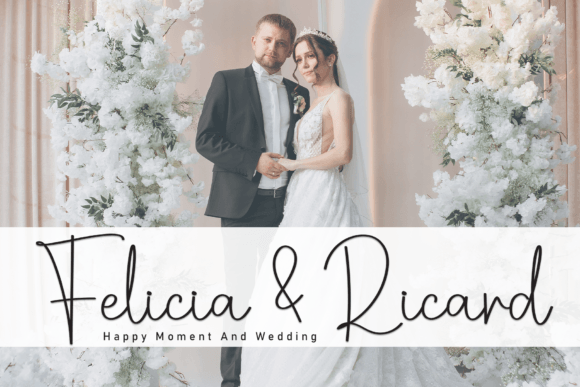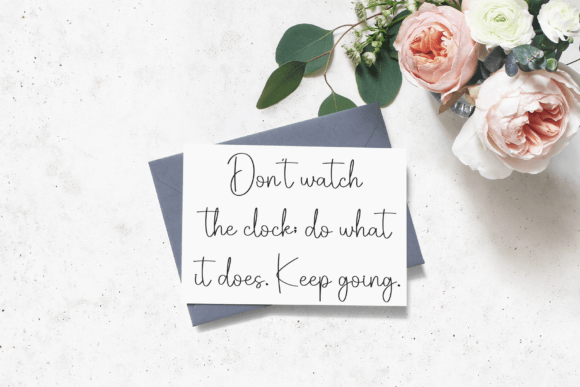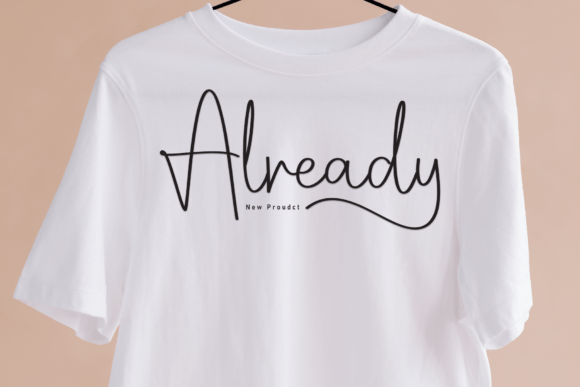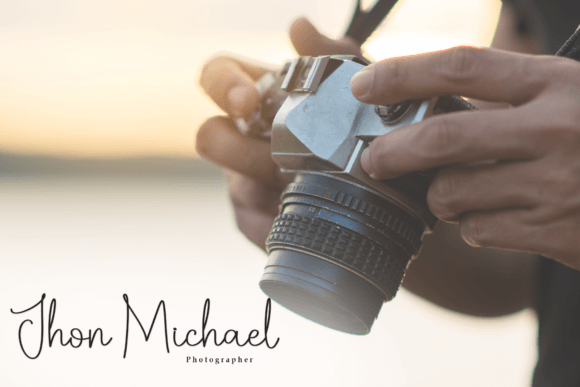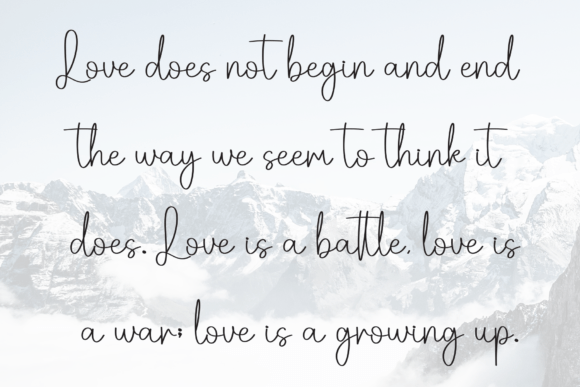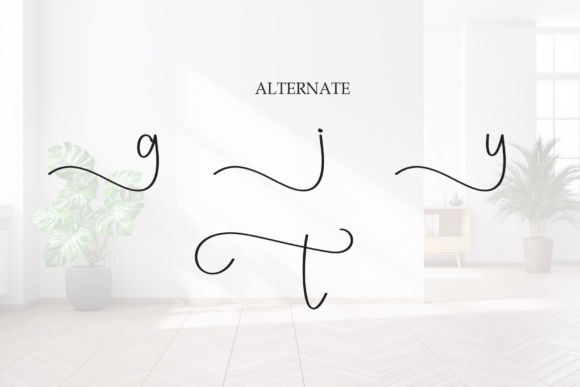
Introduction to Property Font
Have you ever been in the middle of a creative project, searching for the perfect font to bring your design to life, only to find that nothing seems to fit? The search can be overwhelming, but what if I told you that there’s a high-quality font that could elevate your design to the next level?
Enter Property Font, a stunning and elegant script font that’s perfect for adding a handwritten touch to your designs. Whether you’re working on a wedding invitation, a thank you card, or a logo, Property Font is sure to impress. With its transparent background and versatile style, it’s a valuable resource for designers looking to create something truly unique and memorable.
Not only is Property Font a free download, but it’s also a great way to add a personal touch to your designs. In this article, we’ll explore the features and benefits of Property Font, and show you how to incorporate it into your next creative project.
Key Features of Property Font
- High-quality font with a transparent background, ideal for creative projects and design resources.
- Unique and stylish font design, perfect for adding a touch of elegance to any creative project.
- Easy to use and customize, with a clear and legible font style that is perfect for body text and headings.
Honest Review: Property Font
As a designer, I’m always on the lookout for high quality design resources to elevate my creative projects. Property Font has caught my attention with its sleek and modern design.
- ✨ The Property Font has a transparent background, making it easy to use in any design project.
- ✨ The font is available in various weights and styles, giving designers flexibility in their creative projects.
- ⚠️ The font is not suitable for use in print materials, as it may not hold up well under high resolution.
- ⚠️ Some designers may find the font too modern or trendy, which may not fit with their design aesthetic.
Overall, I’m impressed with Property Font. It’s a great addition to any designer’s toolkit, especially for digital design projects. With its transparent background and free download, it’s a convenient and high-quality resource to have on hand.
Tips for Getting the Most Out of Property Font
To get the most out of Property Font, use it with a transparent background to create a sleek and modern design. Experiment with different font sizes and styles to find the perfect look for your creative project.
Property Font is commonly used in logos, branding materials, and marketing materials. It’s also a great choice for creating a consistent design language across your website and social media channels.
Alternatives to Property Font
Abril Fatface is a high-quality serif font ideal for creative projects requiring elegance and sophistication. It’s available for free download and features a transparent background, making it perfect for various design applications.
Use Abril Fatface when you need to add a touch of luxury to your design. It’s particularly suitable for titles, headings, and other prominent text elements. Compared to Property Font, Abril Fatface has a more classic and refined feel.
Merriweather is a classic serif font that exudes sophistication and refinement. It’s an excellent choice for designers seeking a high-quality font for their creative projects. Merriweather is available for free download and features a transparent background.
Use Merriweather when you need a font that conveys a sense of tradition and elegance. It’s particularly suitable for body text, titles, and other text elements requiring a classic feel. Compared to Property Font, Merriweather has a more formal and conservative tone.
Can I use Property Font for web design?
Yes, Property Font is optimized for web design and can be used for various web projects, including websites, landing pages, and mobile apps. The font’s transparent background makes it easy to overlay on images or backgrounds, and its high quality ensures a crisp and clear display on any screen size or resolution.